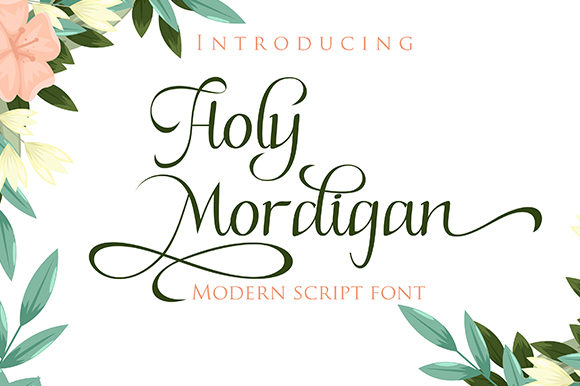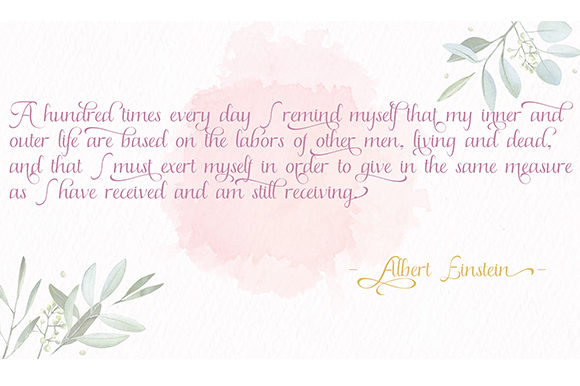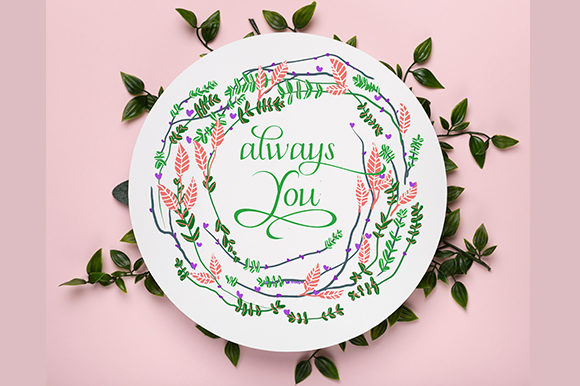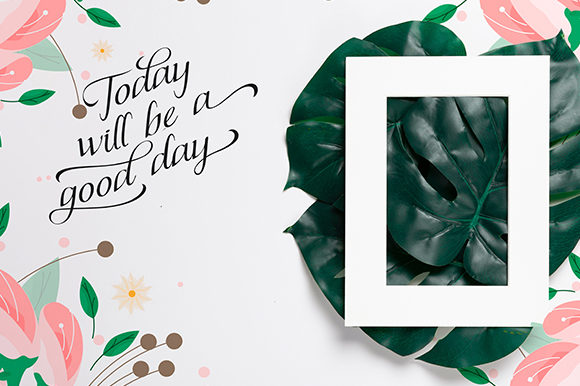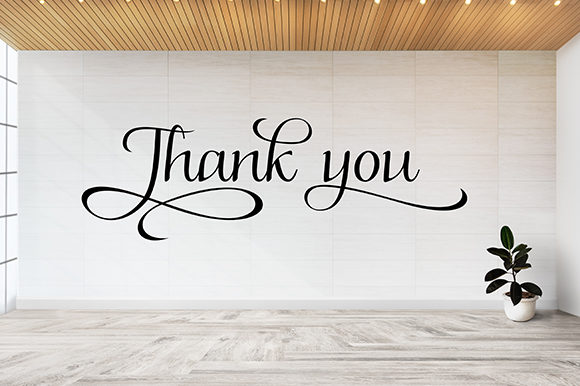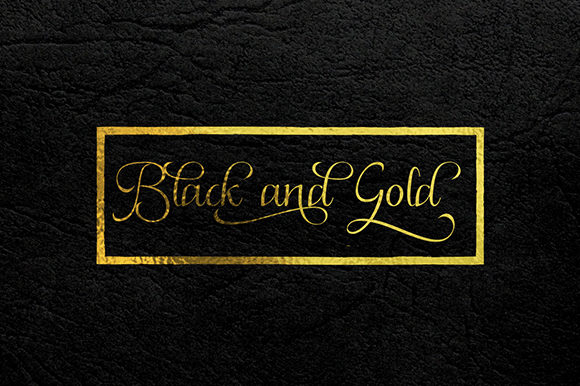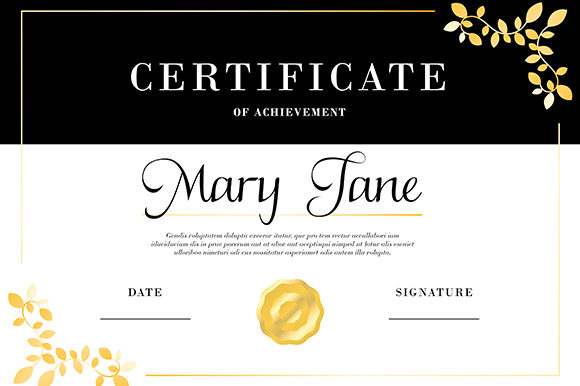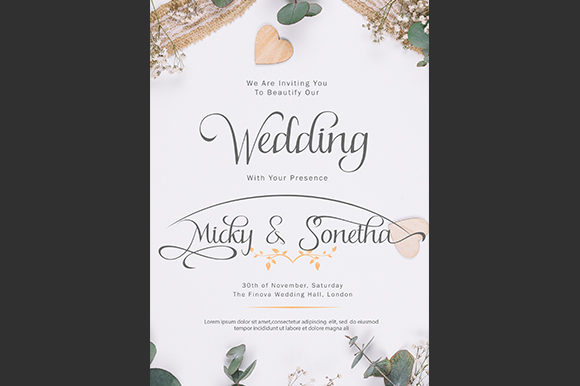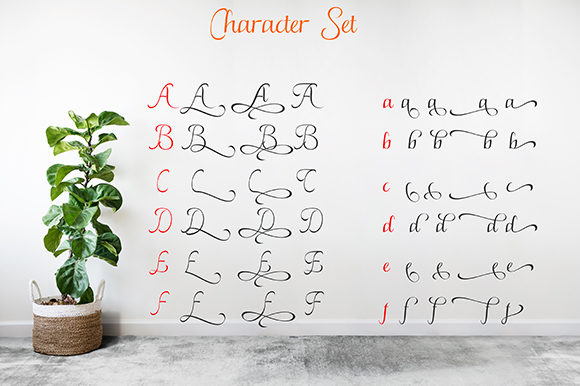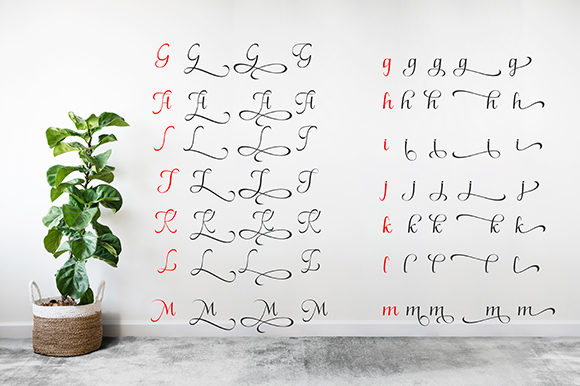
Holy Mordigan Font
Holy Mordigan is a modern script font that is inspired by all things luxury. It will add a sophisticated vibe to any design project!